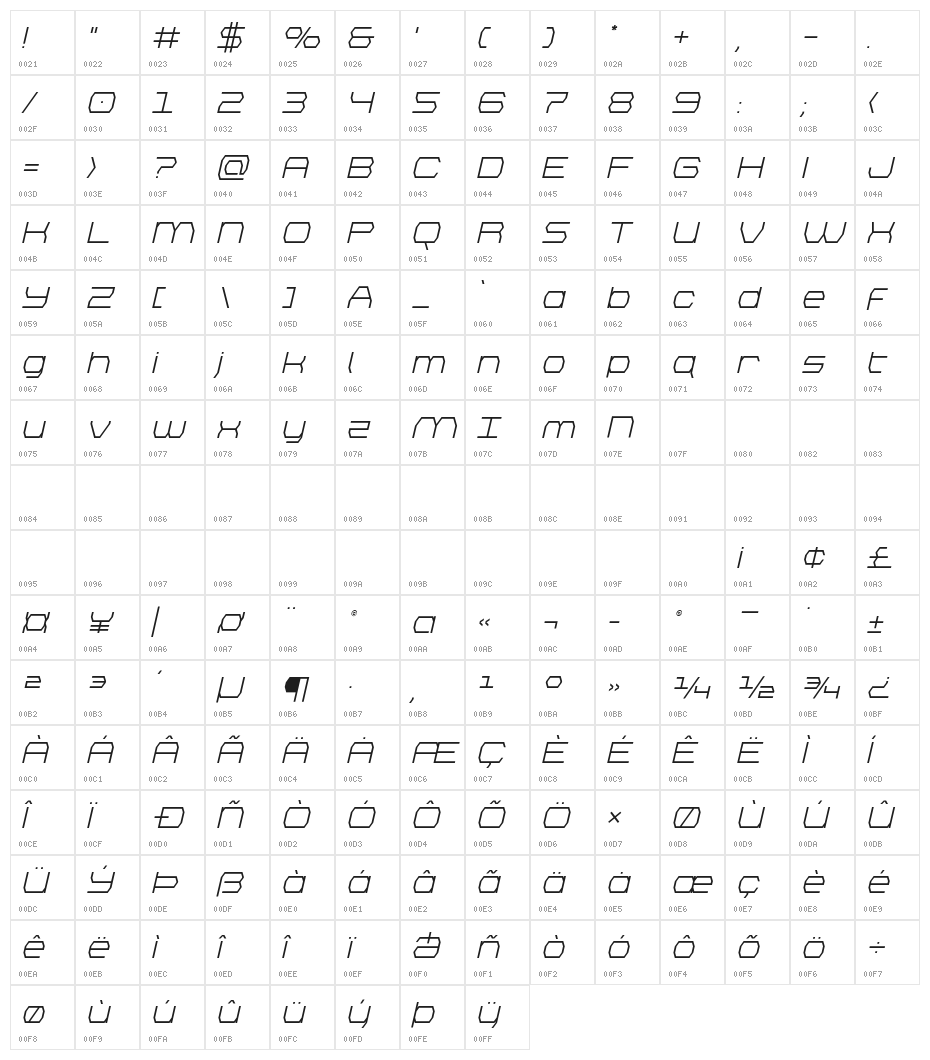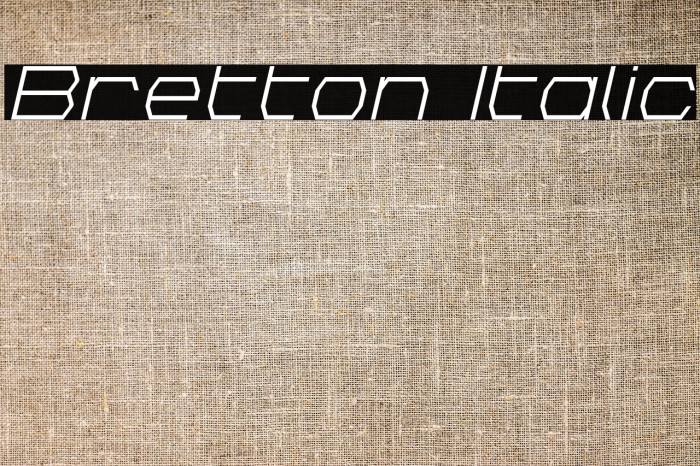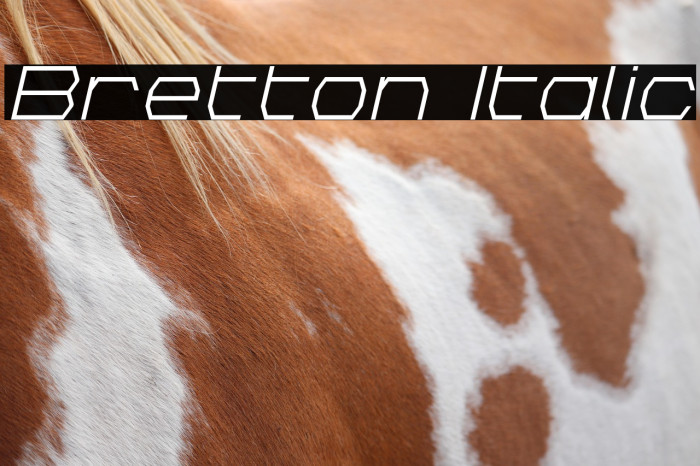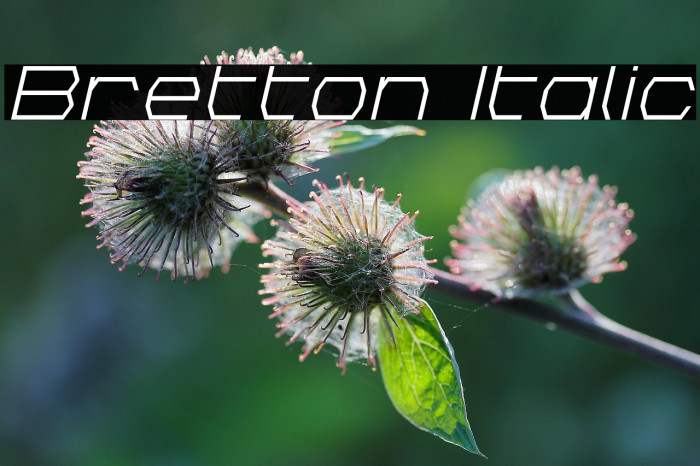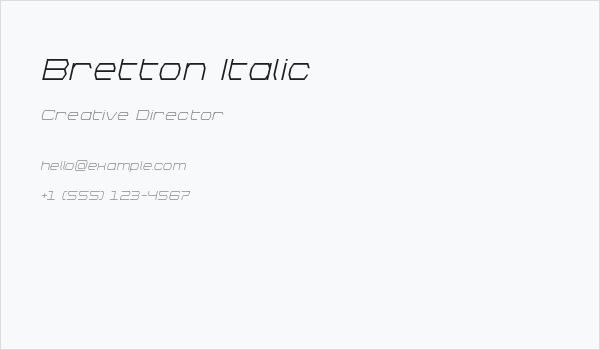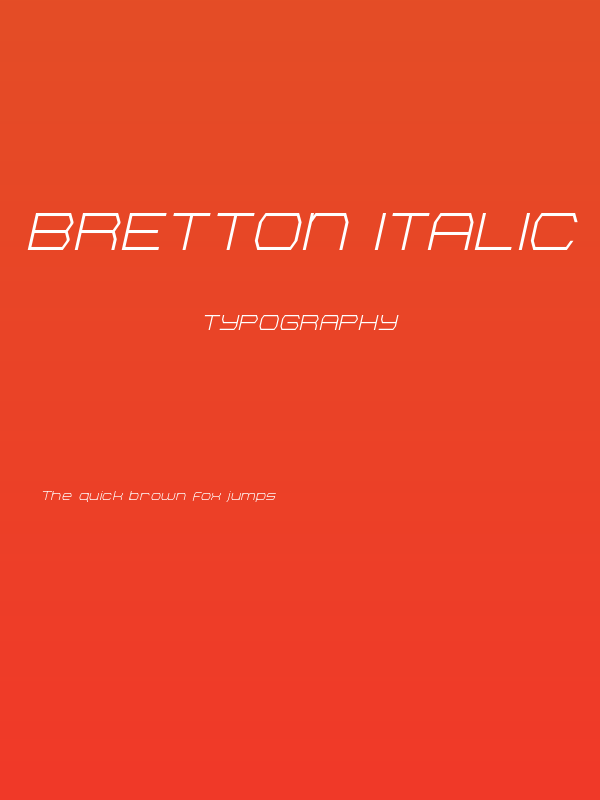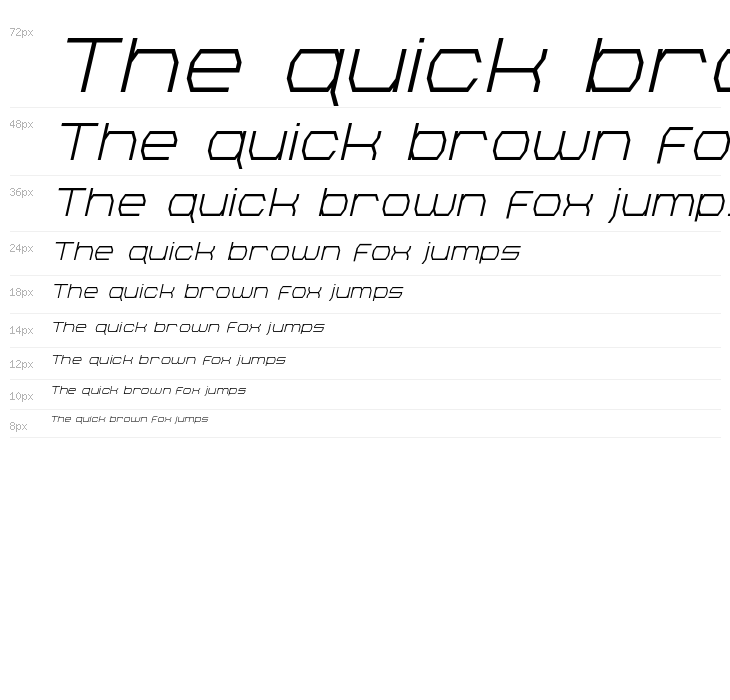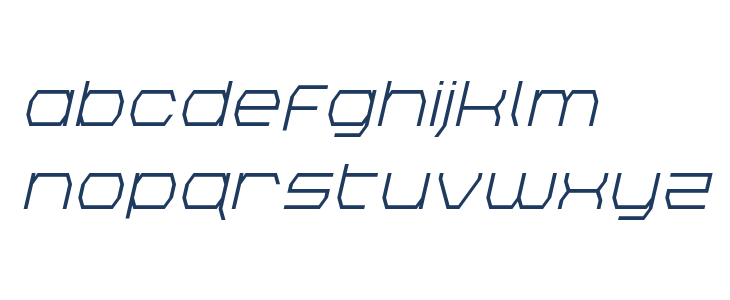
Bretton Italic Description
This font features a modern, geometric design with a distinct italic slant, giving it a dynamic and forward-moving appearance. The characters are constructed with angular lines and sharp edges, creating a futuristic and technical aesthetic. The uppercase and lowercase letters maintain a consistent style, with a uniform stroke width that adds to its sleek and streamlined look. The numerals and special characters follow the same design principles, ensuring a cohesive visual identity across all glyphs. This font's unique style makes it suitable for projects that require a contemporary and innovative touch.
Overall StyleFuturistic, Technical
Use CaseHeadlines, Logos, Digital Interfaces
Proposed ProjectsIdeal for technology branding, modern advertising, digital interfaces, and innovative product packaging.